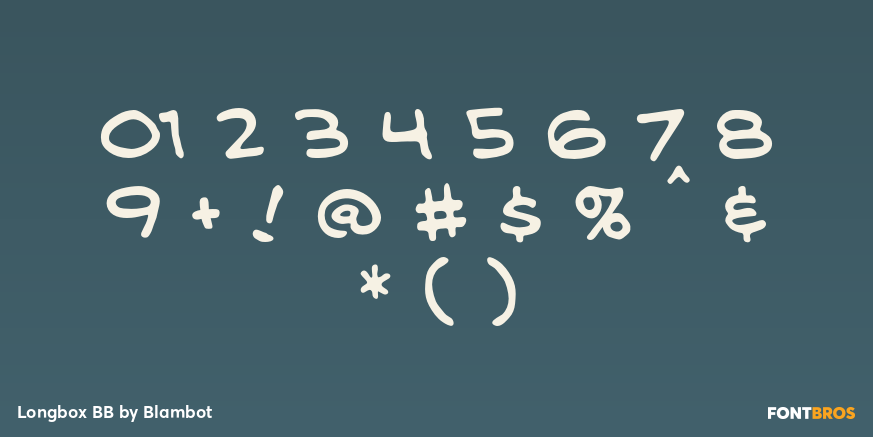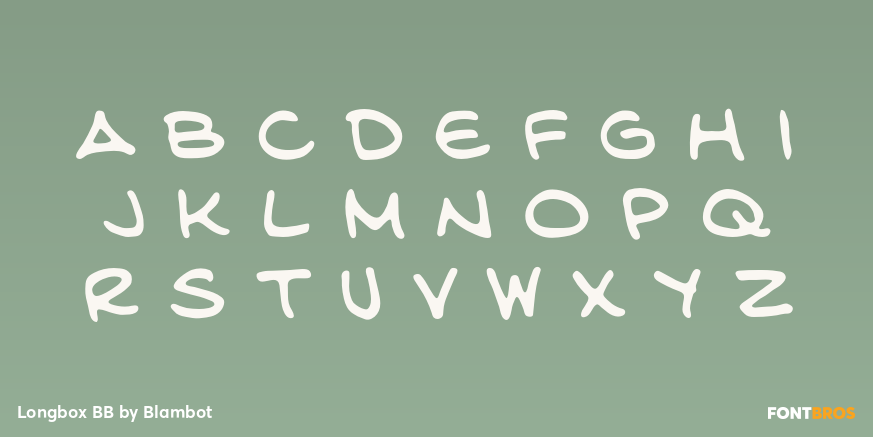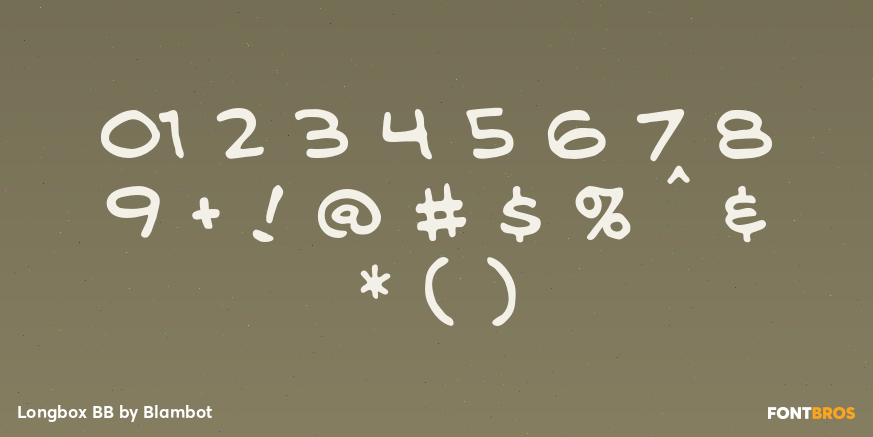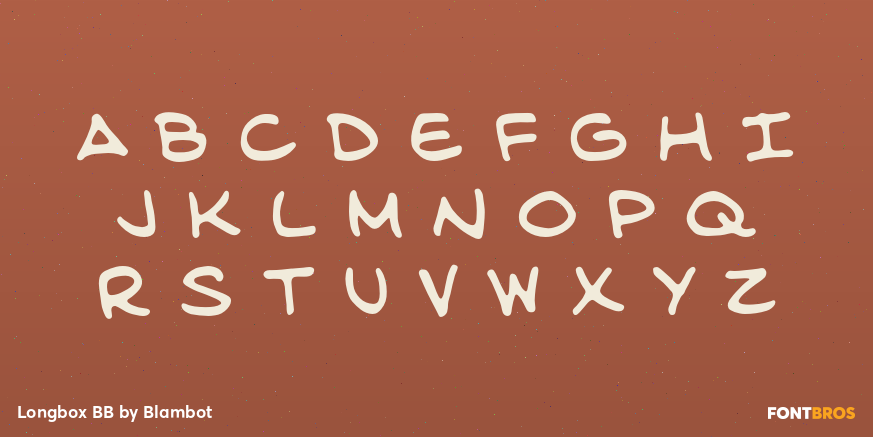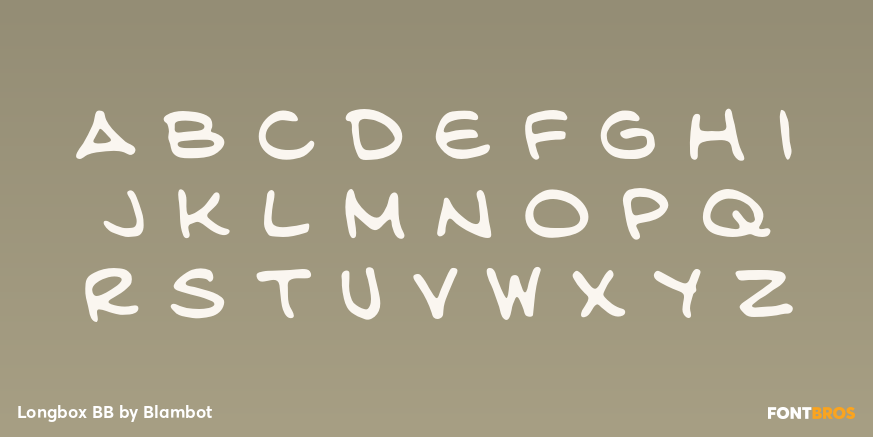
Longbox BB
Font Family by Blambot
LONGBOX BB is a casual, tightly-kerned comic book font with rounded letters and large compliment of European characters. The OpenType version has autoligatures to swap out duplicate letters for a more organic look.
Includes Regular, Bold, Italic and BoldItalic.